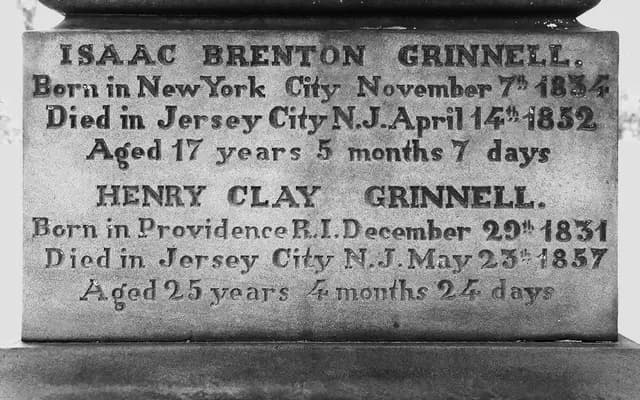
A semi-slab family derived from 19th-century gravestone lettering at Brooklyn's Green-Wood Cemetery, spanning nine weights with a semi-script italic.
Drawn from carved lettering on the Grinnell family monument at Green-Wood Cemetery, Lang pairs slab-serif uppercase letters with a simplified semi-slab lowercase across a weight range from Thin to Black. The italic departs from a mechanical slant, picking up on script qualities found in adjacent monuments, and includes optional swash capitals for additional ornamentation. OpenType features cover small caps, oldstyle and tabular figures, extensive ligatures and contextual alternates, with full variable font support across 2 variable and 16 static files.
Lang occupies the boundary between slab serif and sans-serif: the uppercase uses classic slab-serif construction derived from 19th-century gravestone lettering, while the lowercase adopts a simplified semi-slab structure, making it distinctly a semi-slab family.